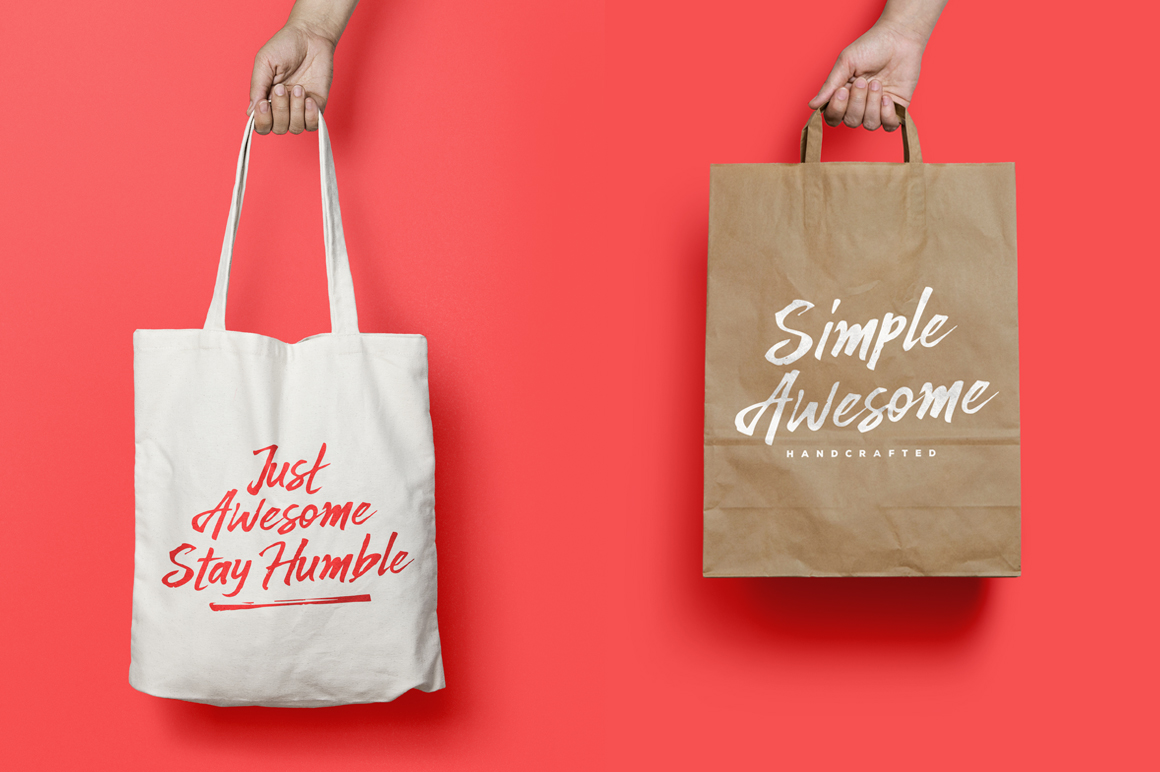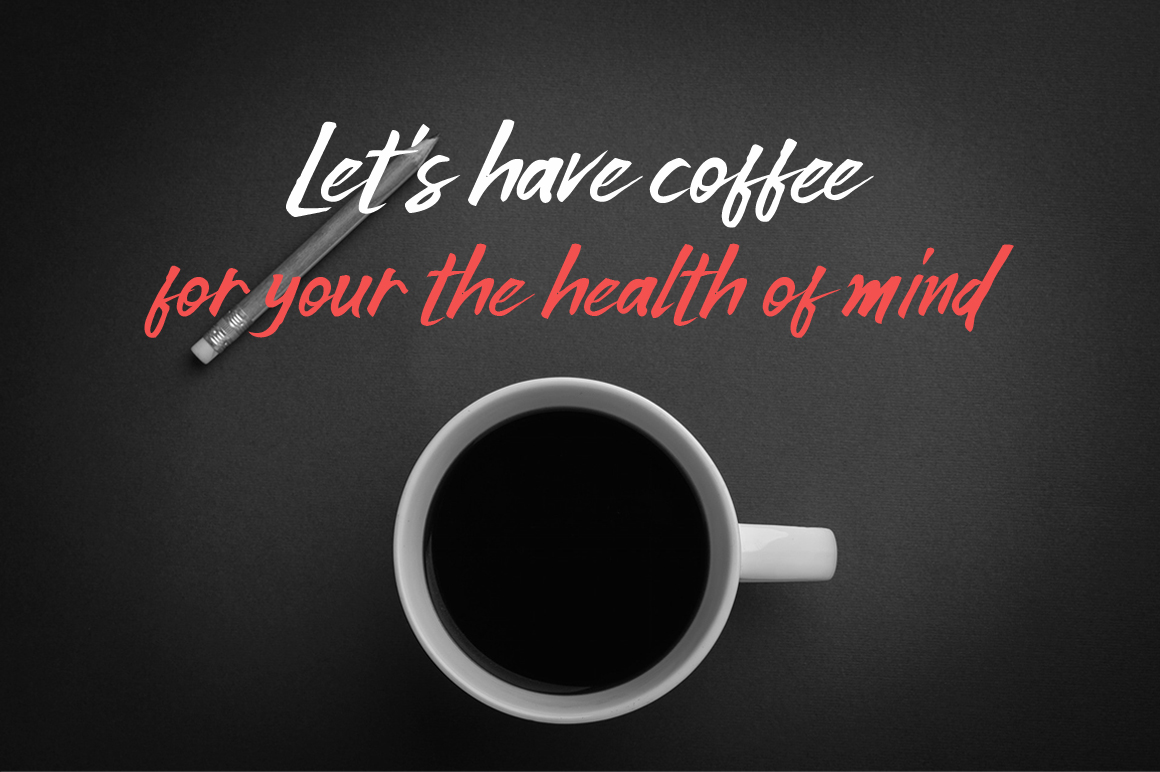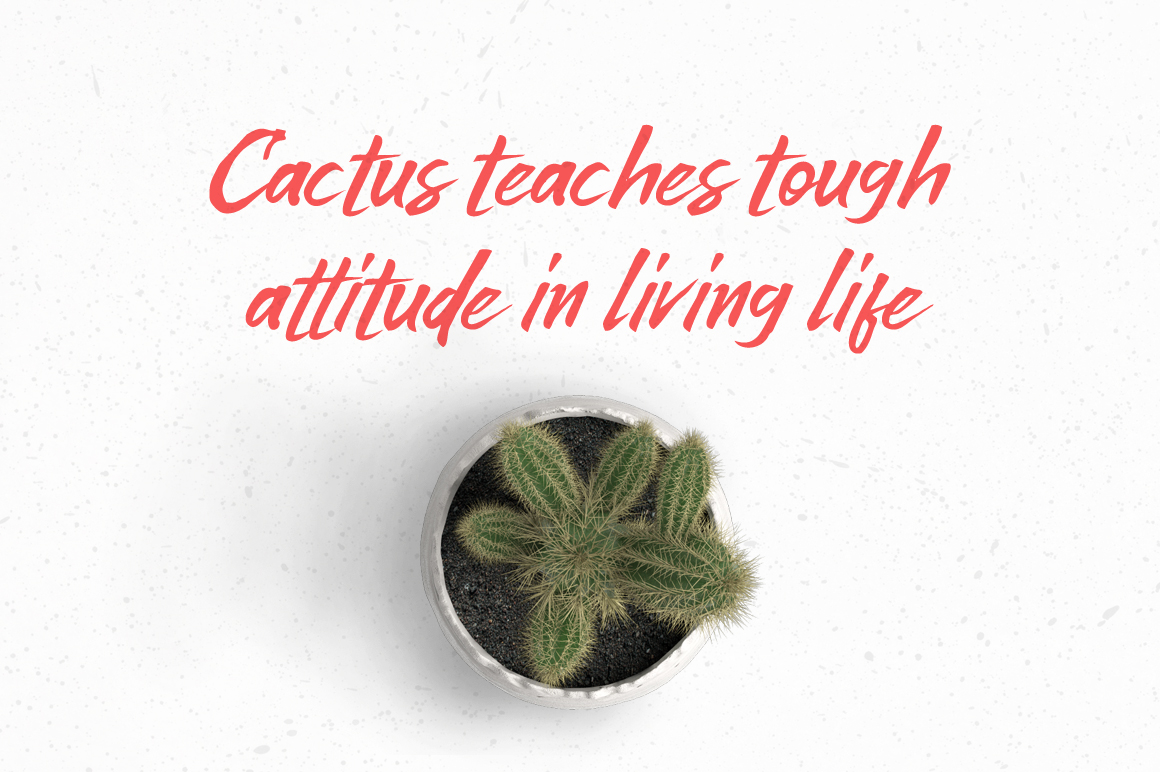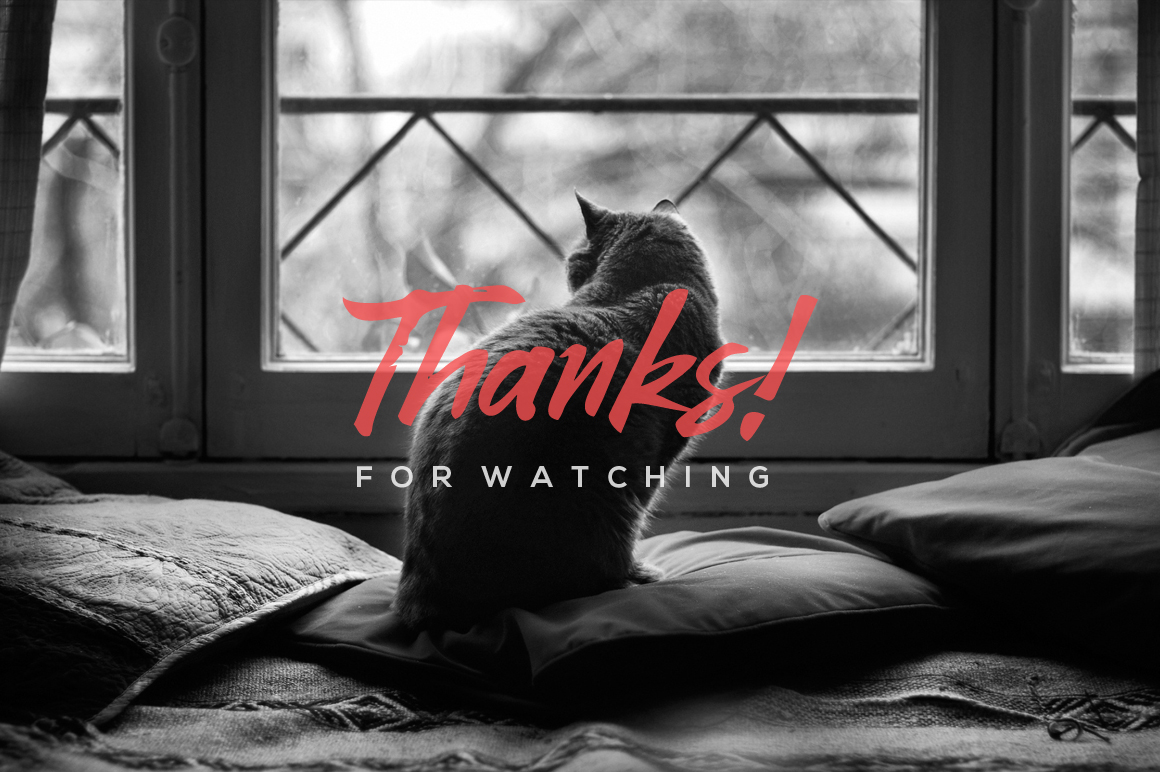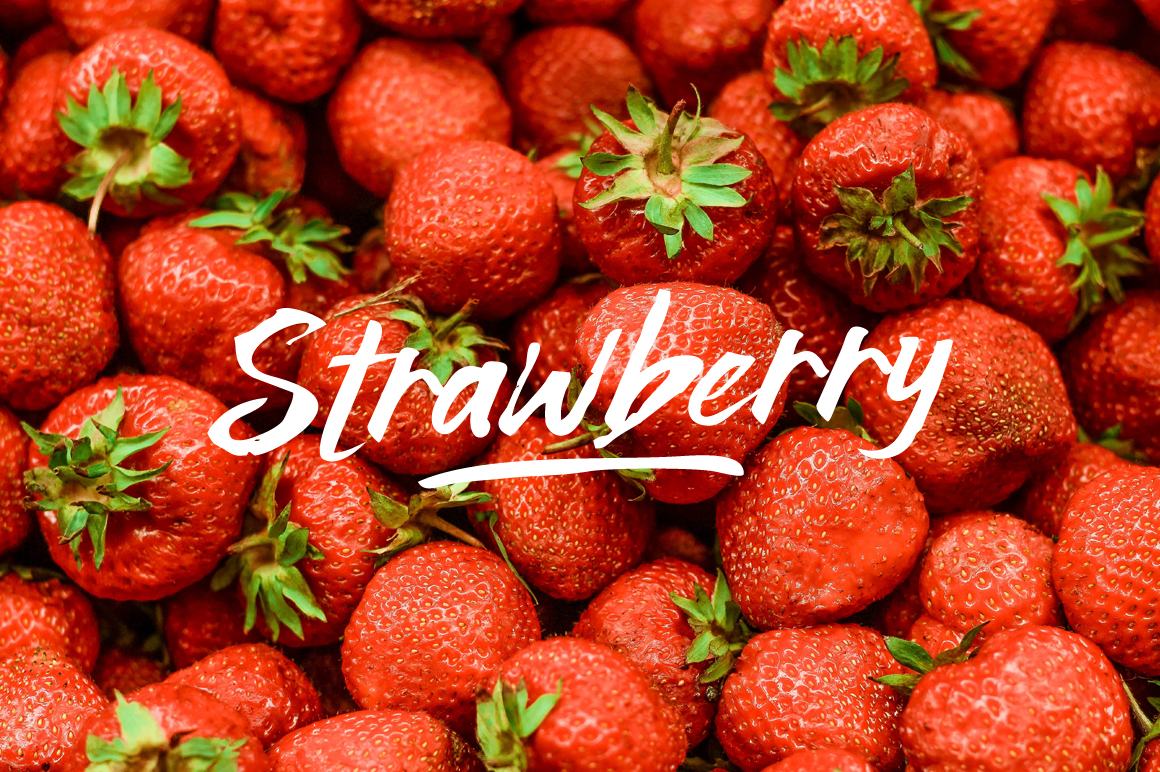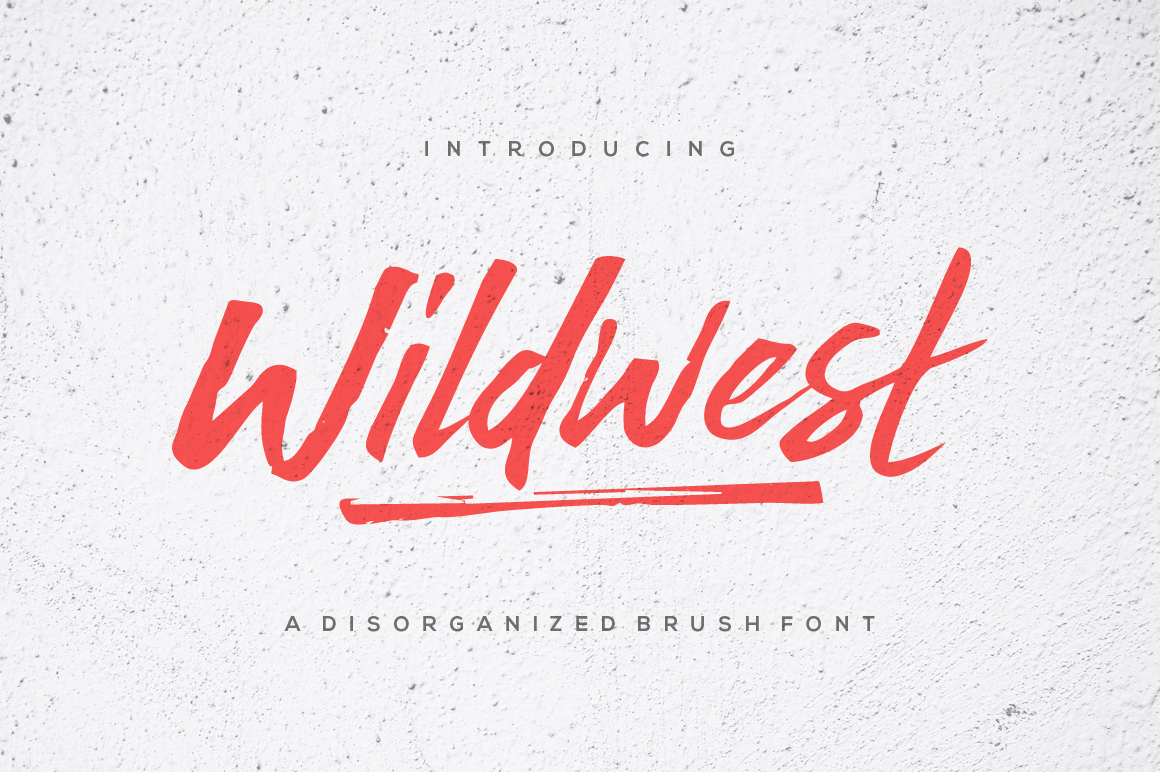
HomePersonal Use FreeWildwest Personal Use Free Wildwest FacebookTwitterPinterestWhatsApp 1 of 6 About Wildwest Font Wildwest is a dynamic and impactful brush font, giving it credence for usage as a display typeface. With a lot of movement and flow, Wildwest is a wonderful font that will give all your designs the touch they need. DOWNLOAD NOW People also explored Dino Saur Font Proleteo Font Tripfills Script Font Hello to Handmade Font Cleric Font Tamarin Font Good Day Font Newera Font Go Healthy Font 185 0 TagsWildwest Font Previous articleGoodline FontNext articleSoria LEAVE A REPLY Cancel reply Comment: Please enter your comment! Name:* Please enter your name here Email:* You have entered an incorrect email address! Please enter your email address here Website: Save my name, email, and website in this browser for the next time I comment. Personal Use Free Cataclysmo Personal Use Free Read more about this font Die Nasty Personal Use Free Read more about this font I Am Exceptional Personal Use Free Read more about this font Adrenaline Personal Use Free Read more about this font BLOG Free vs Paid Fonts: Why Investing in Premium Fonts Is Worth It Free vs Paid Fonts: Why Premium Fonts Are Worth It in 2025 The debate of free vs paid fonts continues in the design world. While... To increase your work productivity, choose the most readable fonts. Free Fonts Risk: Why Free Fonts Can Be Dangerous for Designers Elegant Wedding Invitation Fonts – Handwritten & Script Fonts